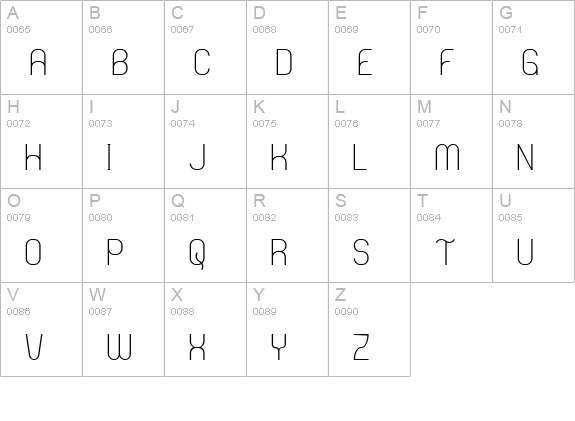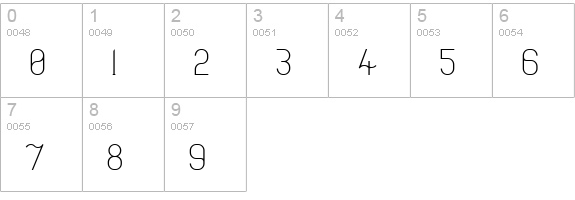
Thong Font Details
Introducing Thong font, a stunning typeface that exudes elegance and sophistication. With its sleek and modern design, Thong font is perfect for adding a touch of refinement to any project. Whether you're creating stunning branding materials, eye-catching advertisements, or captivating website designs, this font will effortlessly elevate your work to new heights. Thong font is characterized by its clean lines and well-balanced letterforms, making it highly readable and versatile. Its distinct and contemporary style makes it suitable for a wide range of applications, from fashion and beauty to luxury and lifestyle. But what sets Thong font apart is not just its impeccable design, but also its accessibility. This font is freely available to download at FontsMarket.com, ensuring that anyone can enjoy its beauty and use it to enhance their creative endeavors. By offering it for free, Thong font empowers designers, entrepreneurs, and creatives alike to access high-quality typography without any constraints. With Thong font, you can effortlessly create captivating visuals that leave a lasting impression. So why wait? Download Thong font now from FontsMarket.com and unleash your creativity with this exceptional typeface.